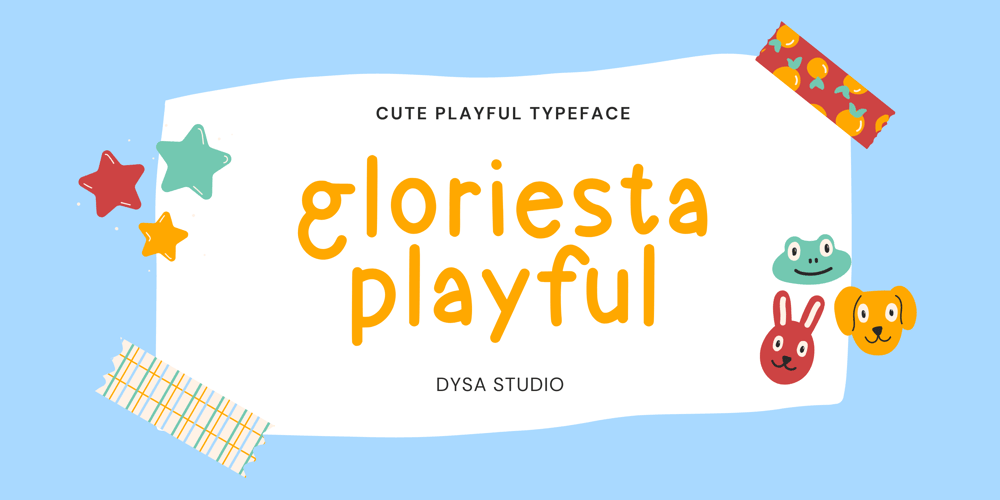
Gloriesta Playful Font Family was designed by Yusup Saputra and published by DYSA Studio. Gloriesta Playful contains 1 styles and family package options. Gloriesta Playful is a new playful typeface. This another collection of display is perfect for your next branding project, excellent for your business. Gloriesta Playful have a natural edges, so this font gives an authentic handcrafted feel style.